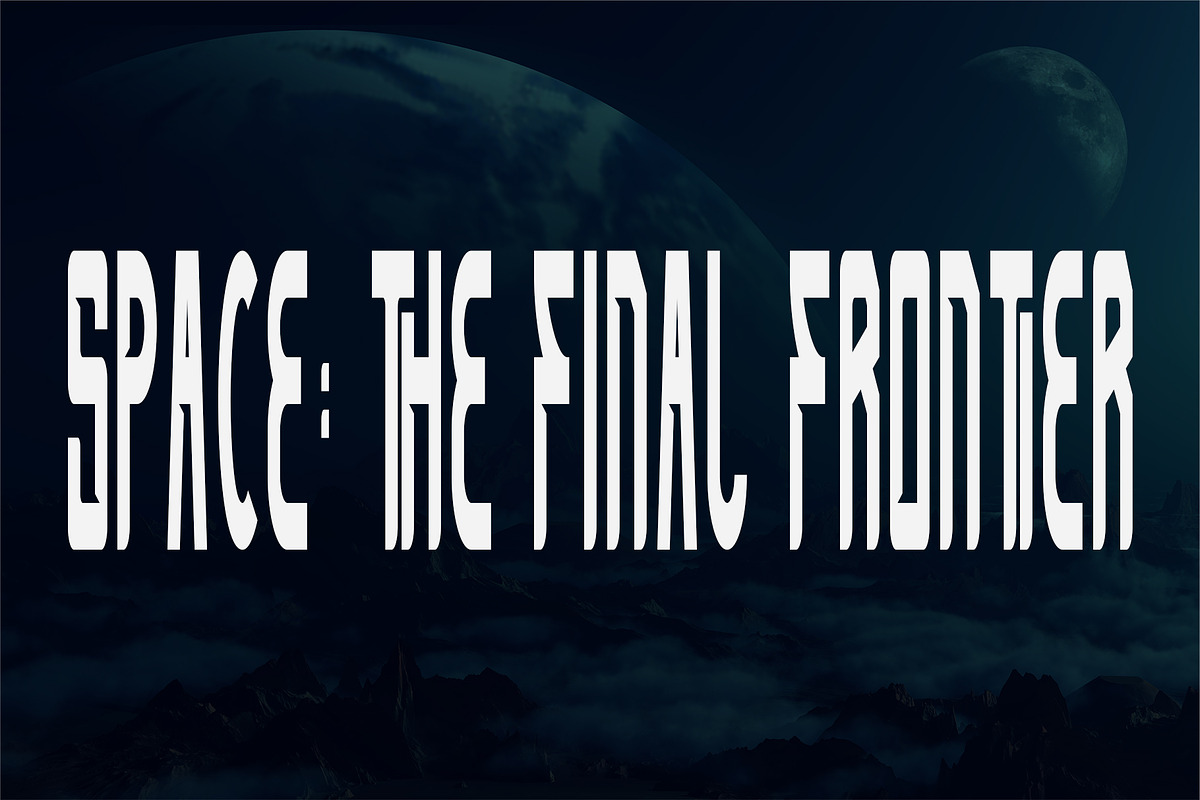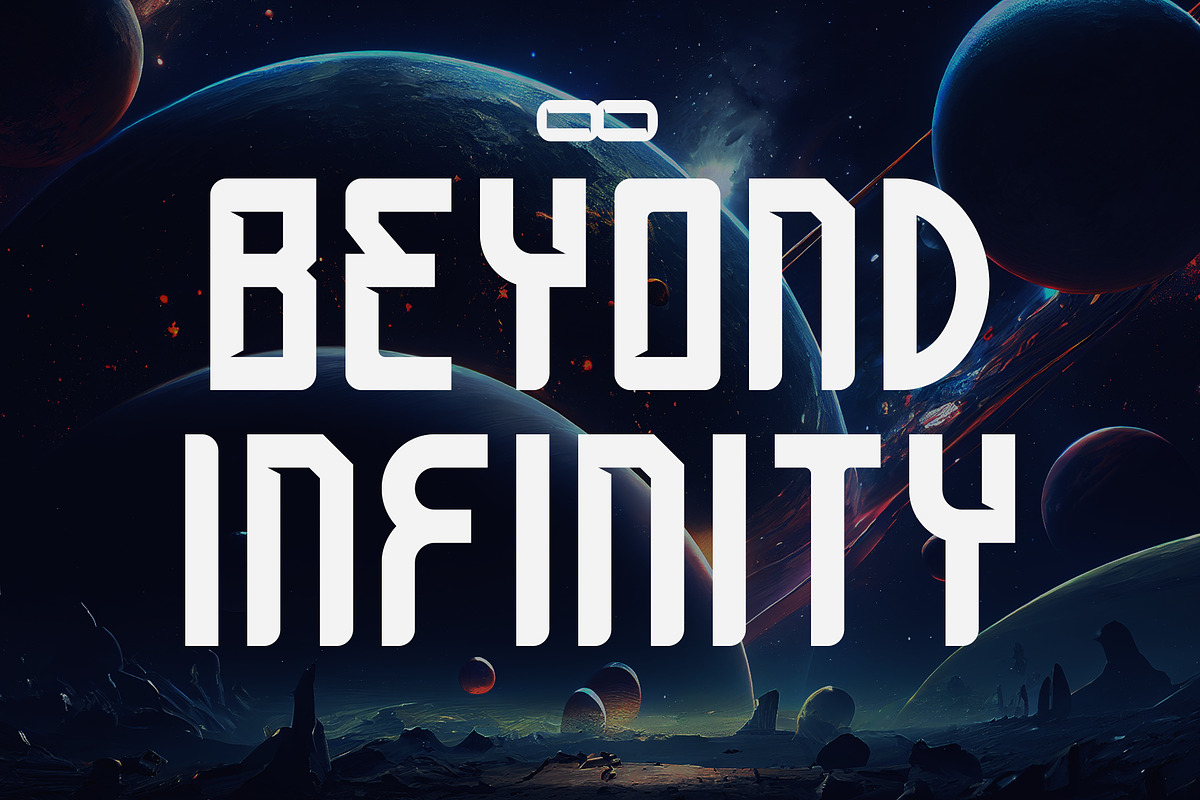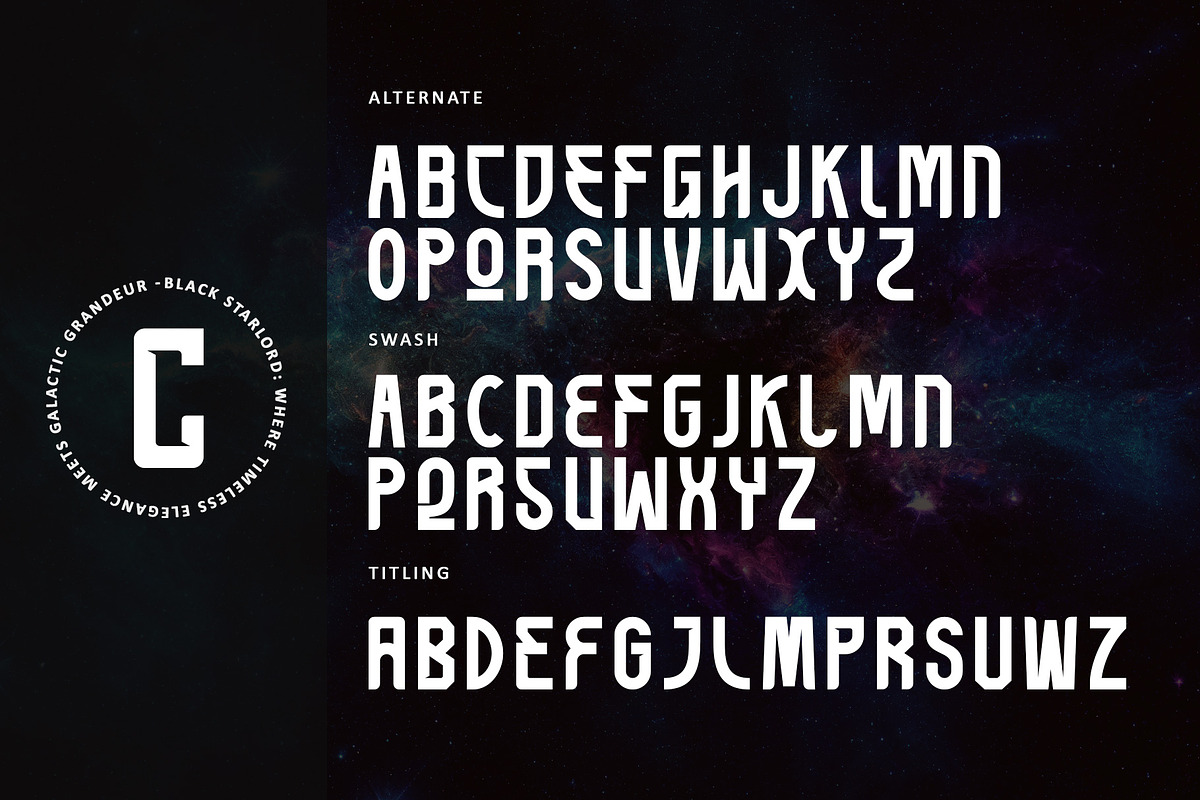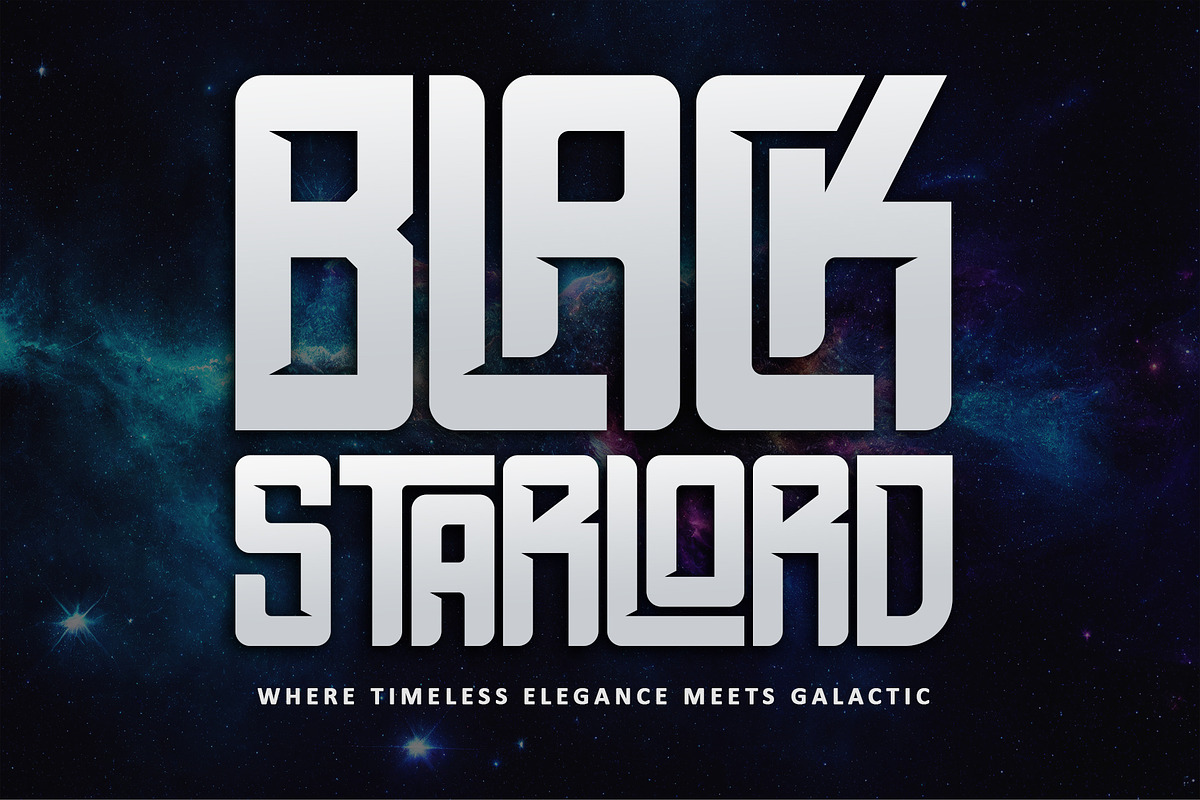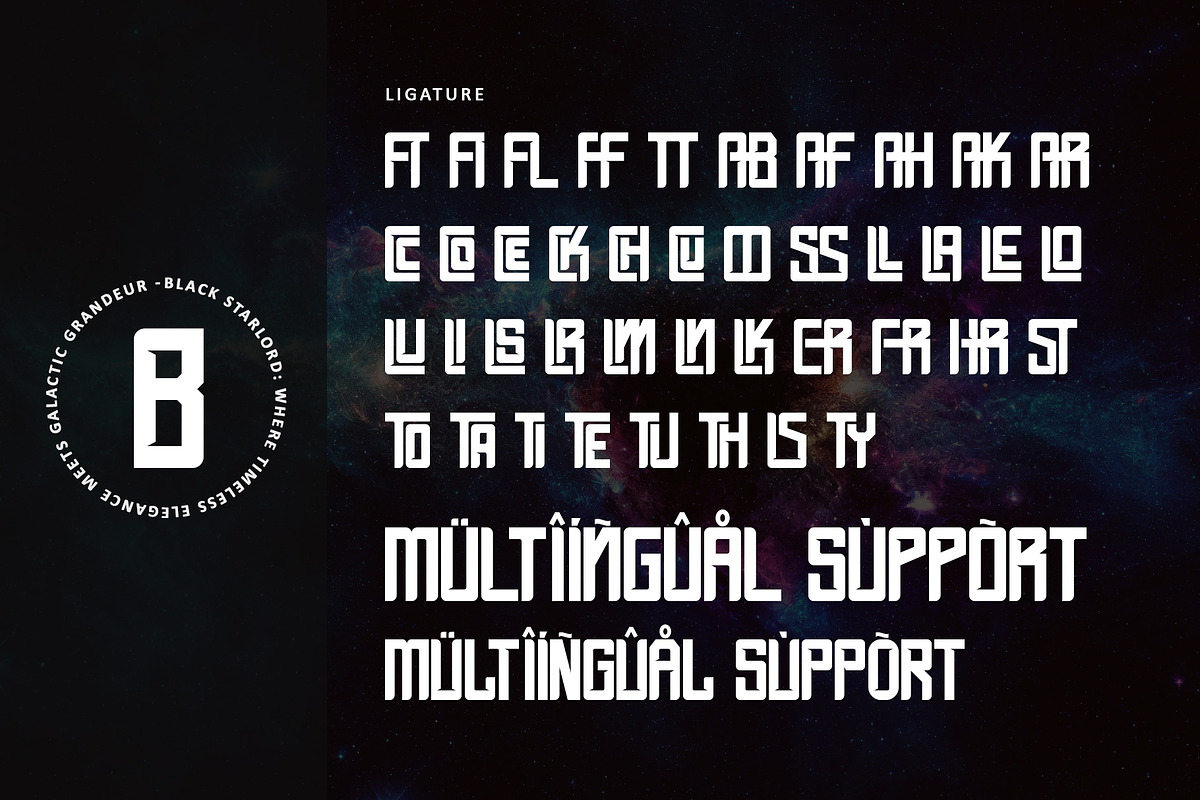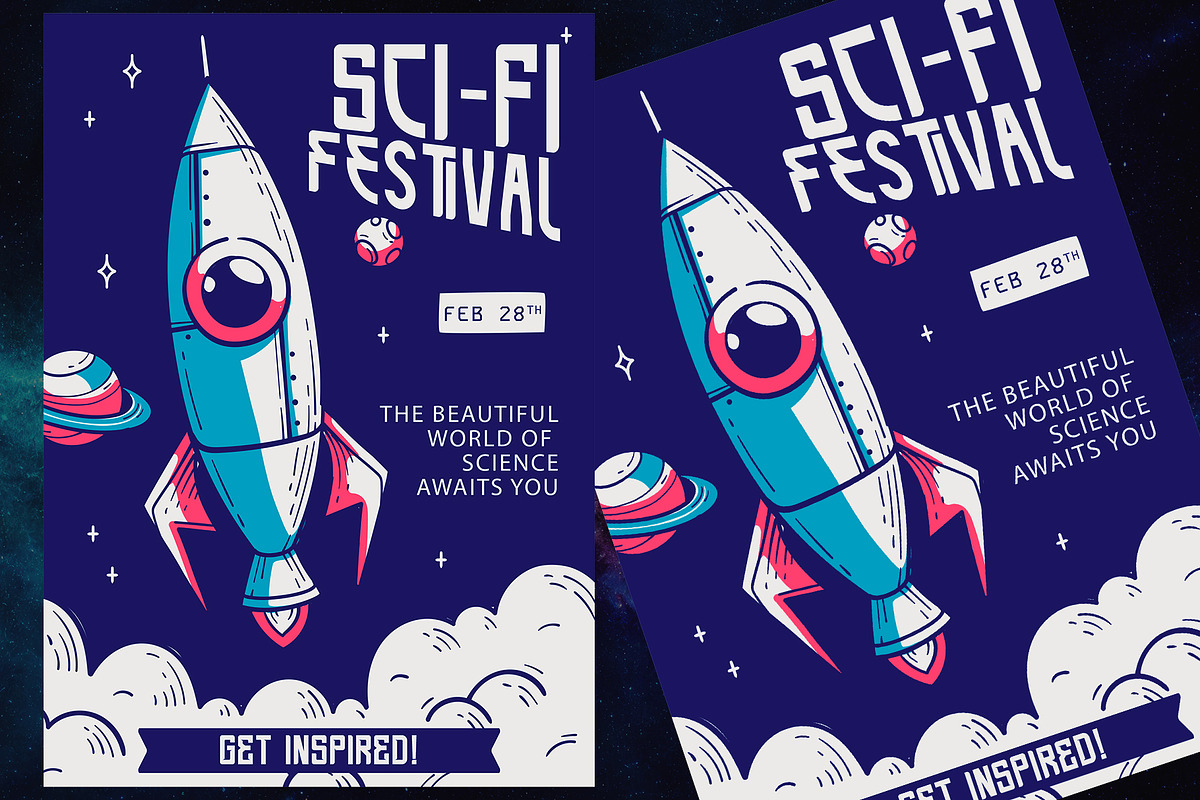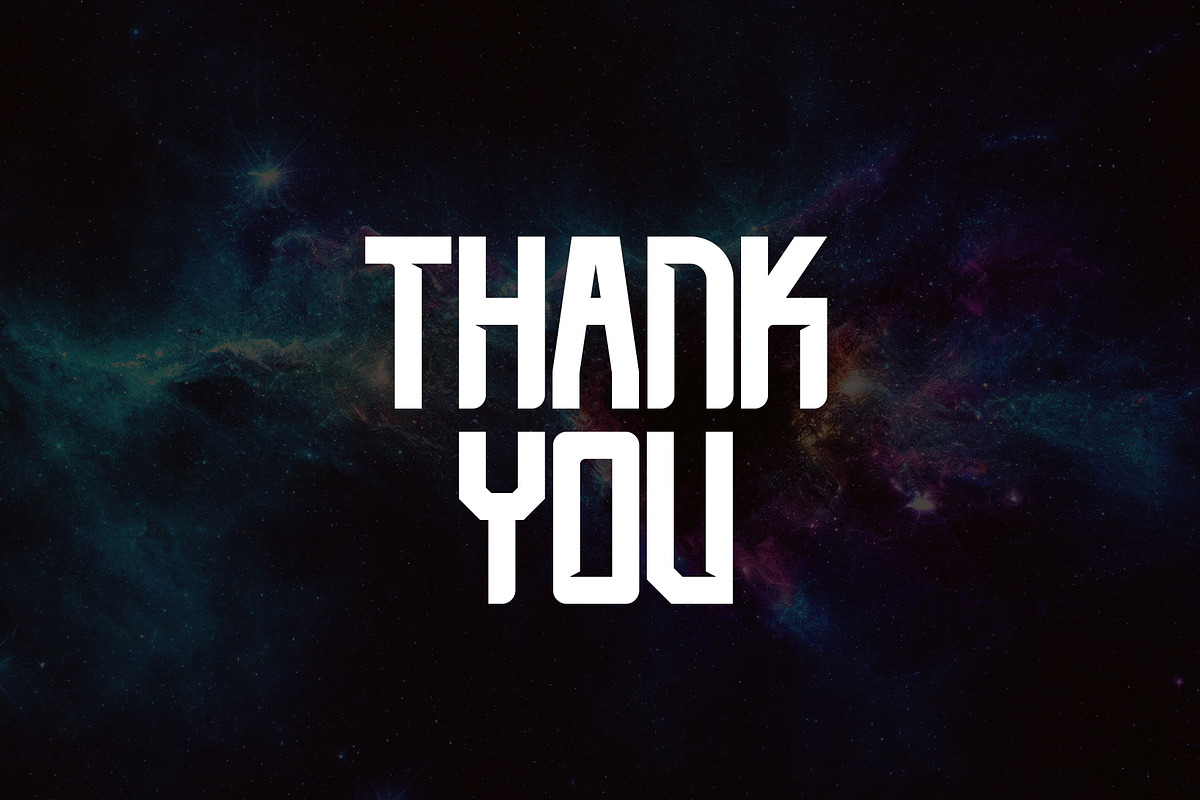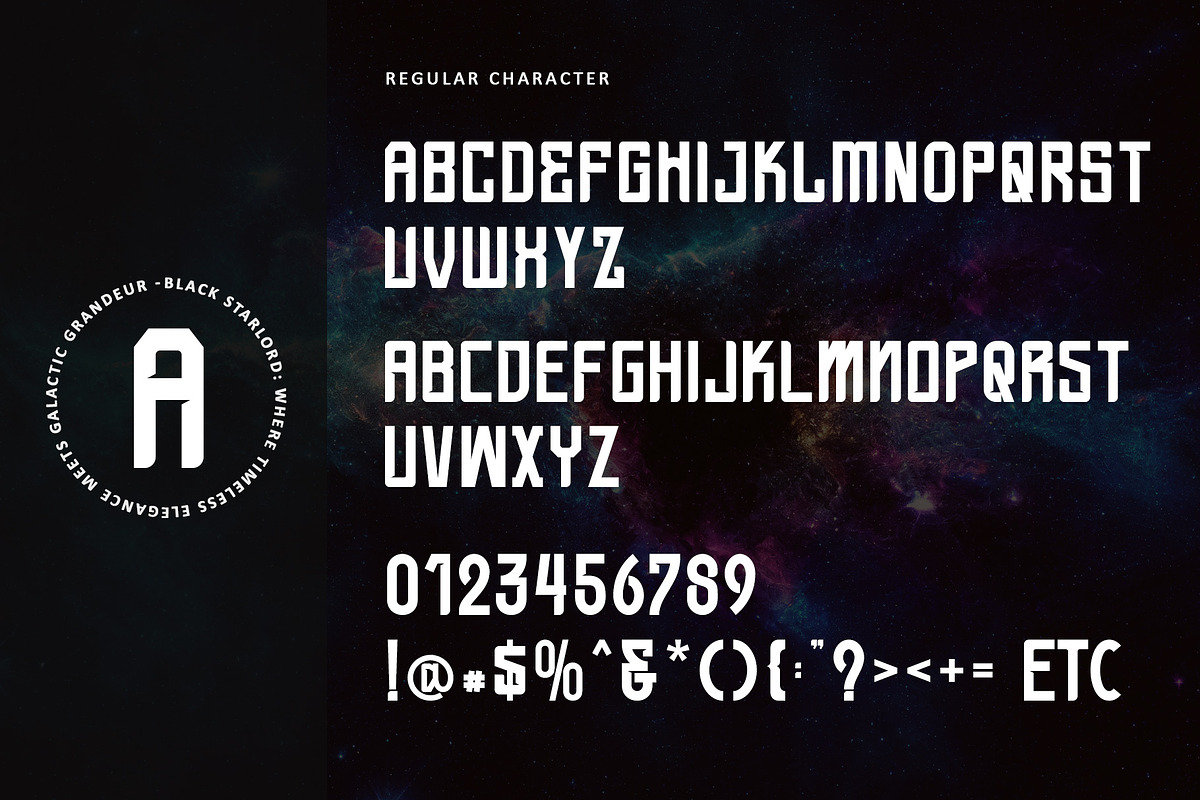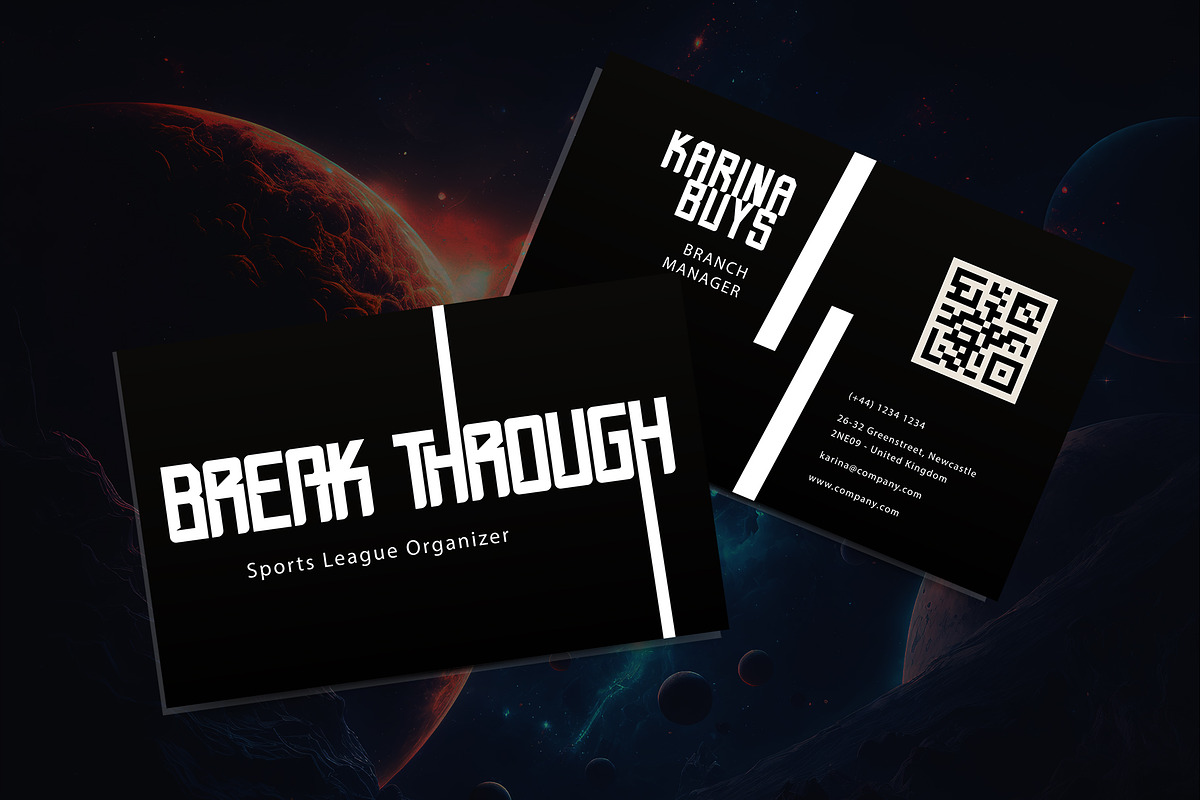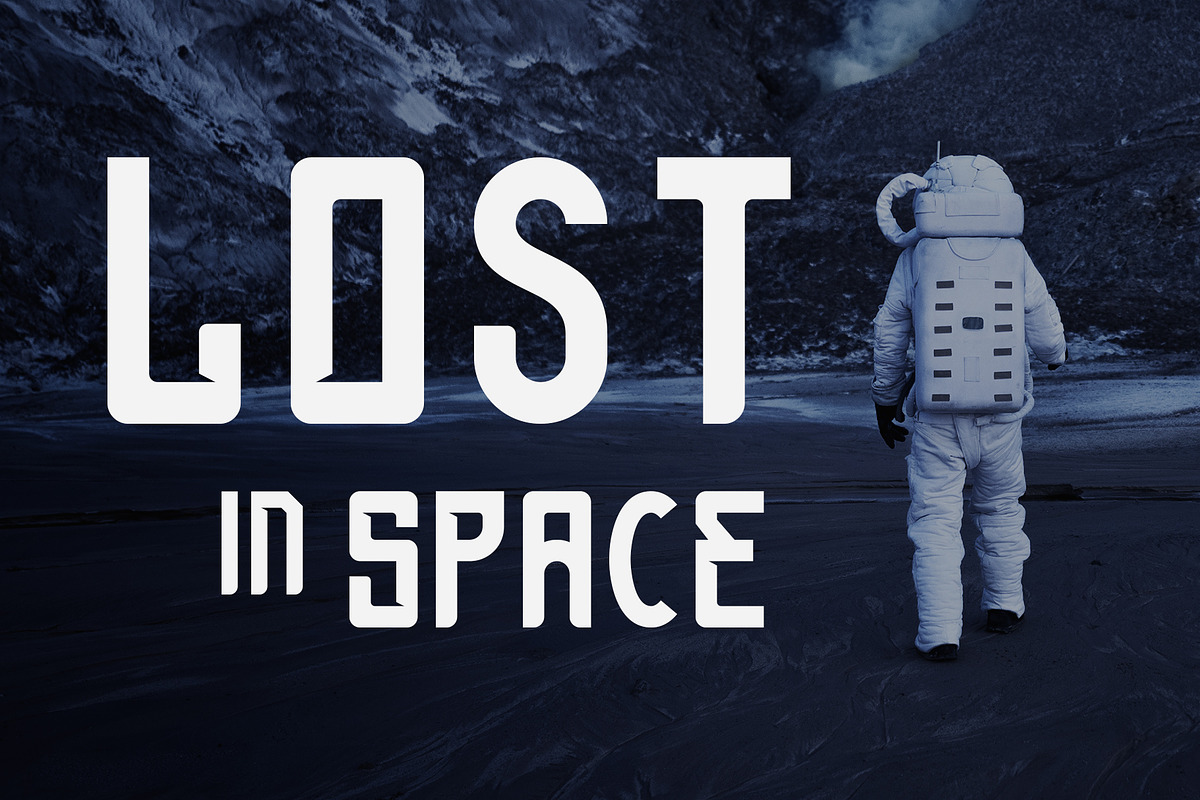
Black Starlord
Explore the elegance of Black Starlord, a captivating sans-serif font that seamlessly blends boldness with distinctive character forms. Perfect for enhancing a variety of design projects, from product packaging to branding, its PUA encoding grants easy access to a wealth of unique glyphs and swashes, ensuring extraordinary results for your creative endeavors.
Many Features:
- Support multilingual; ä ö ü Ä Ö Ü ß ¿ ¡
- lowercase and uppercase letters
- Alternate, swash, titling & ligature